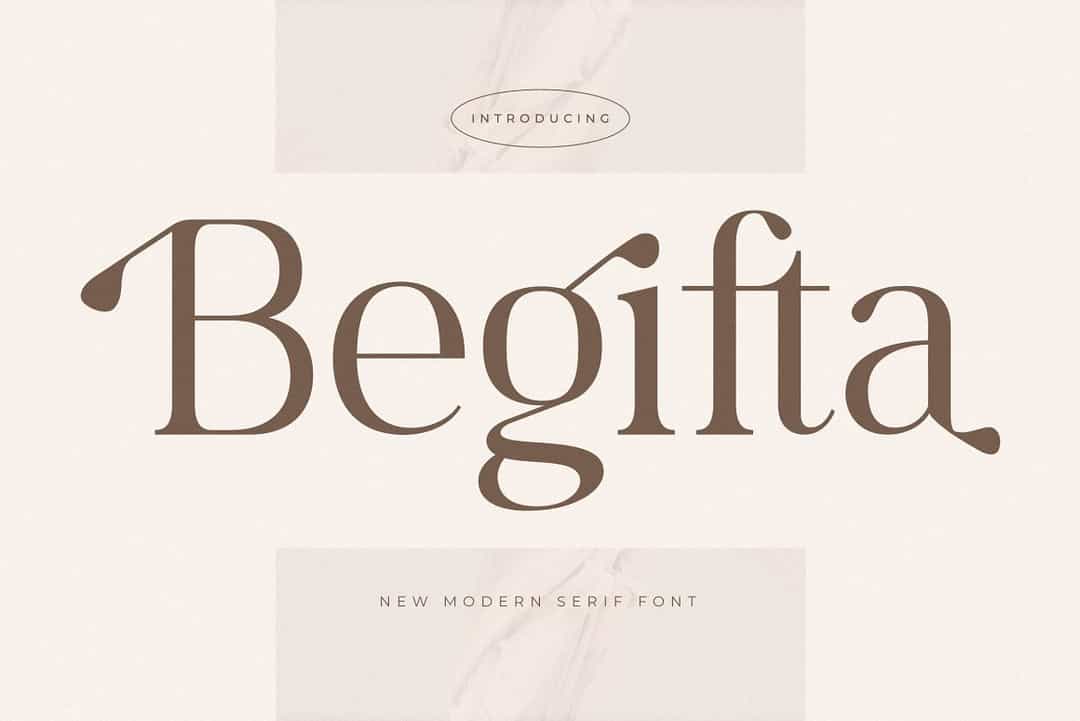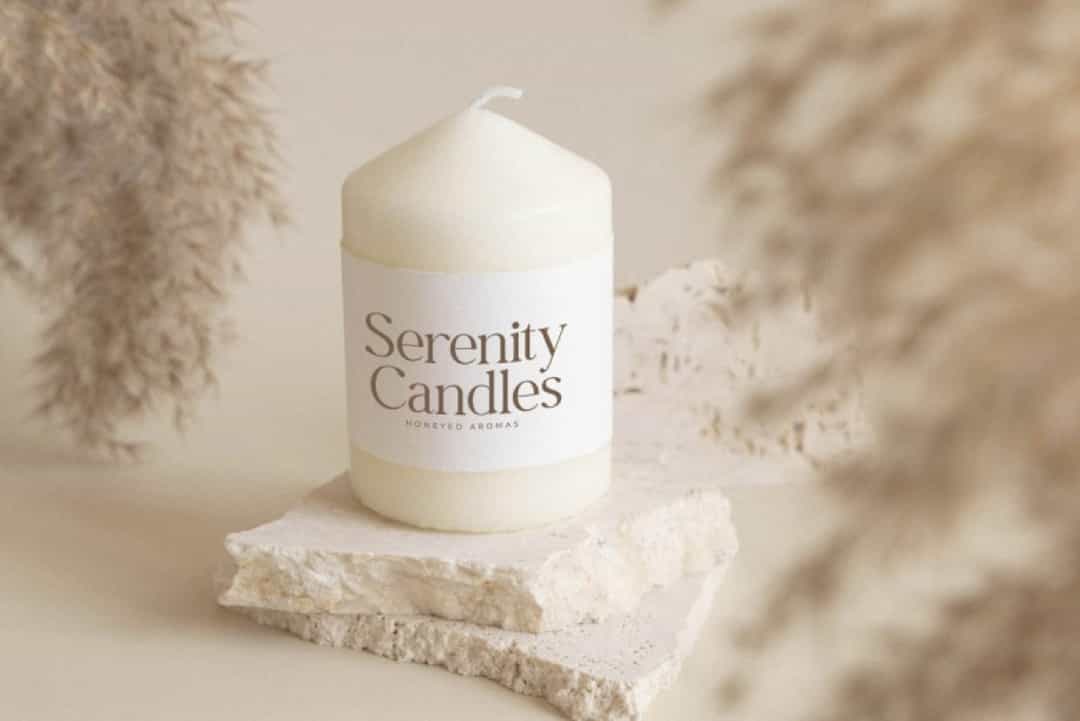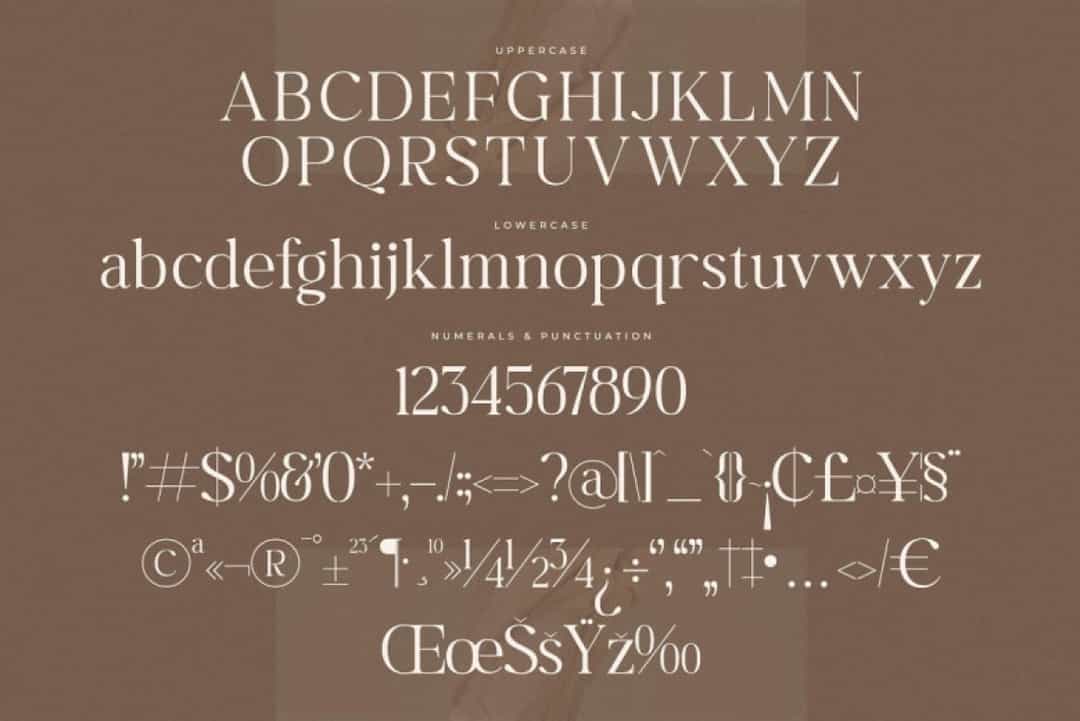
Begifta from Letterena’s Modern Serif Font is perfect for designs such as logos, branding and homeware designs, packaging for products cups posters quotes shopping bags t-shirts book covers name cards greeting cards invitation cards labels watermarks photography special events photography or any other high-end project that requires elegant serif style projects.